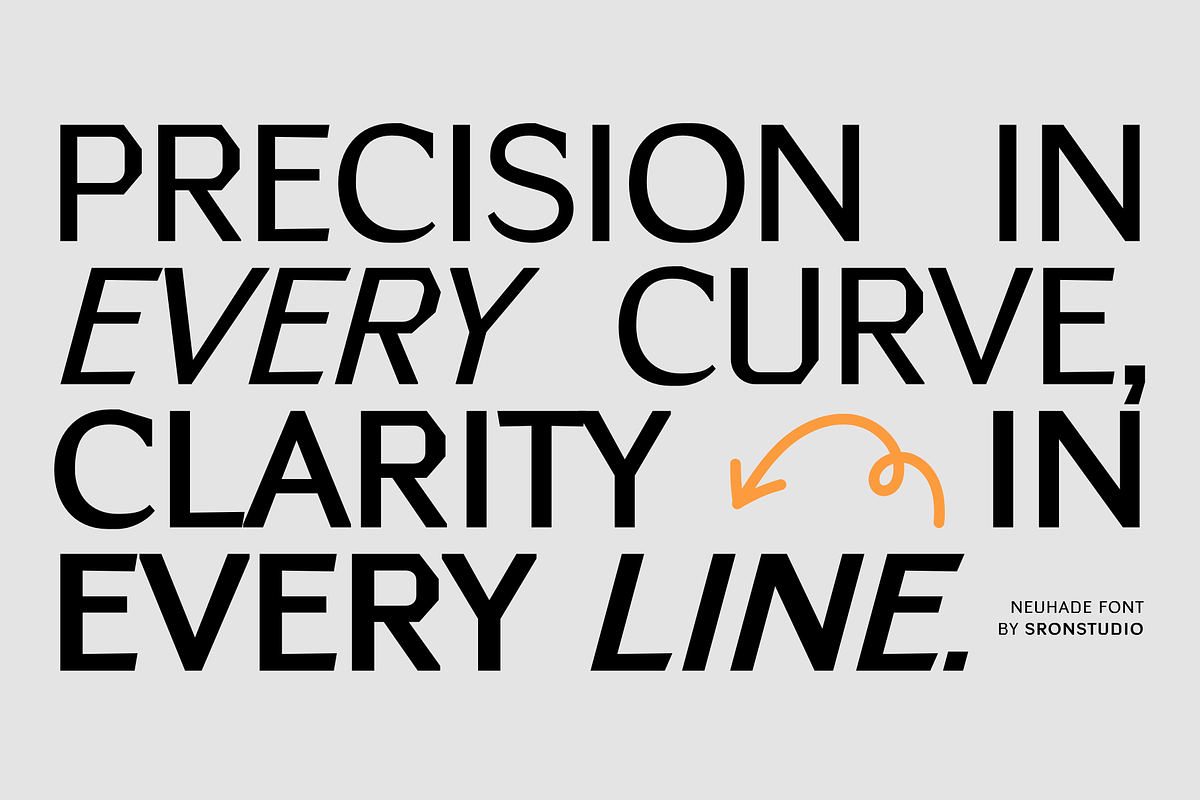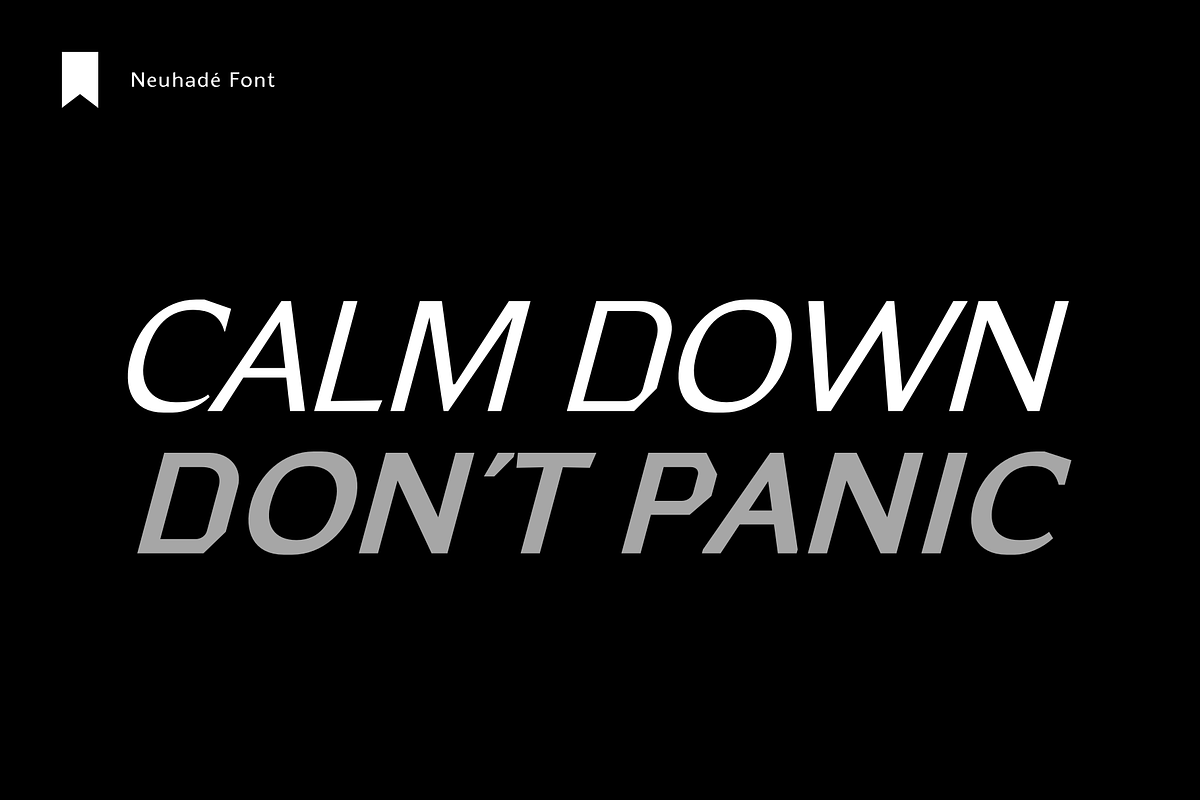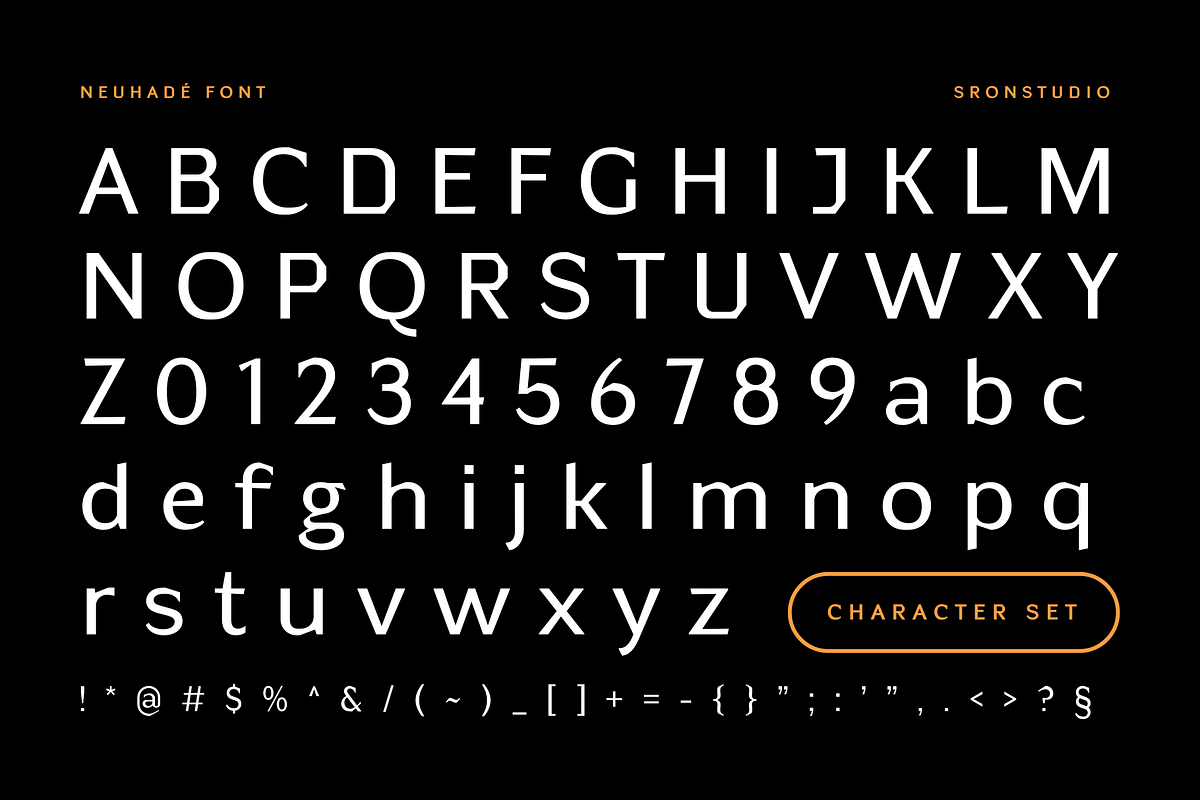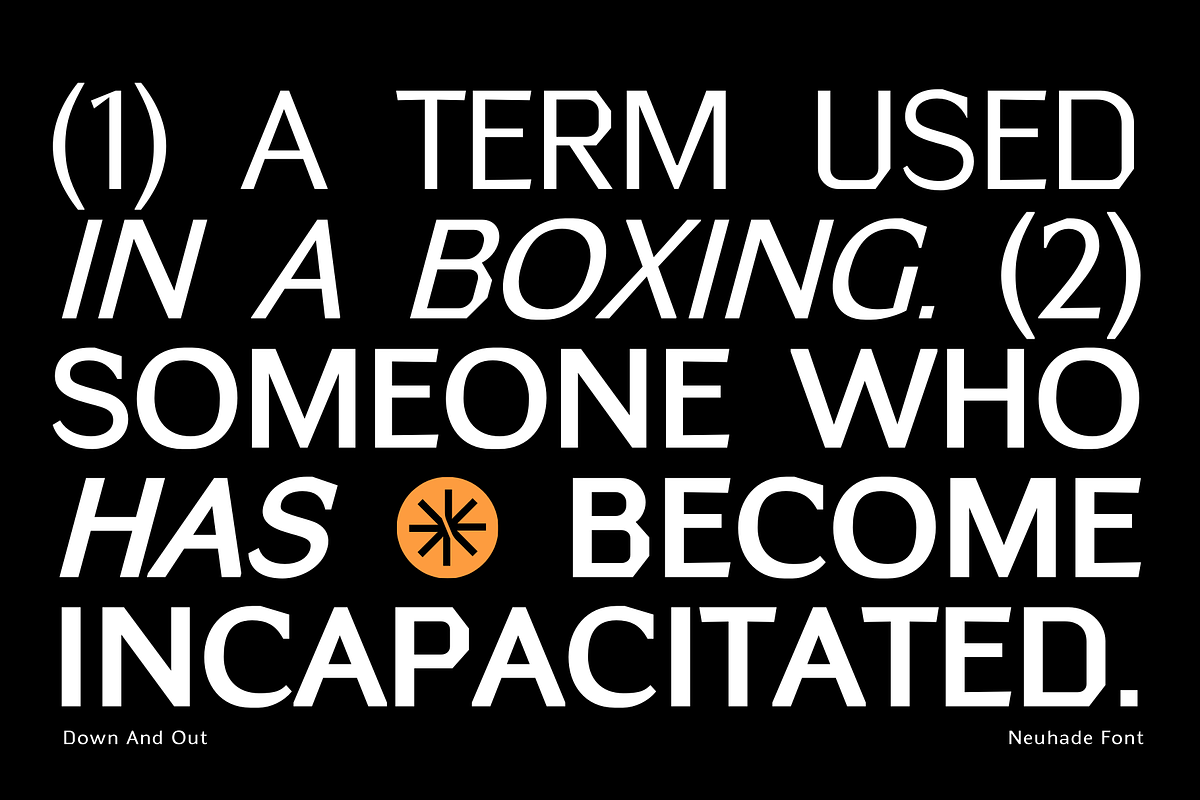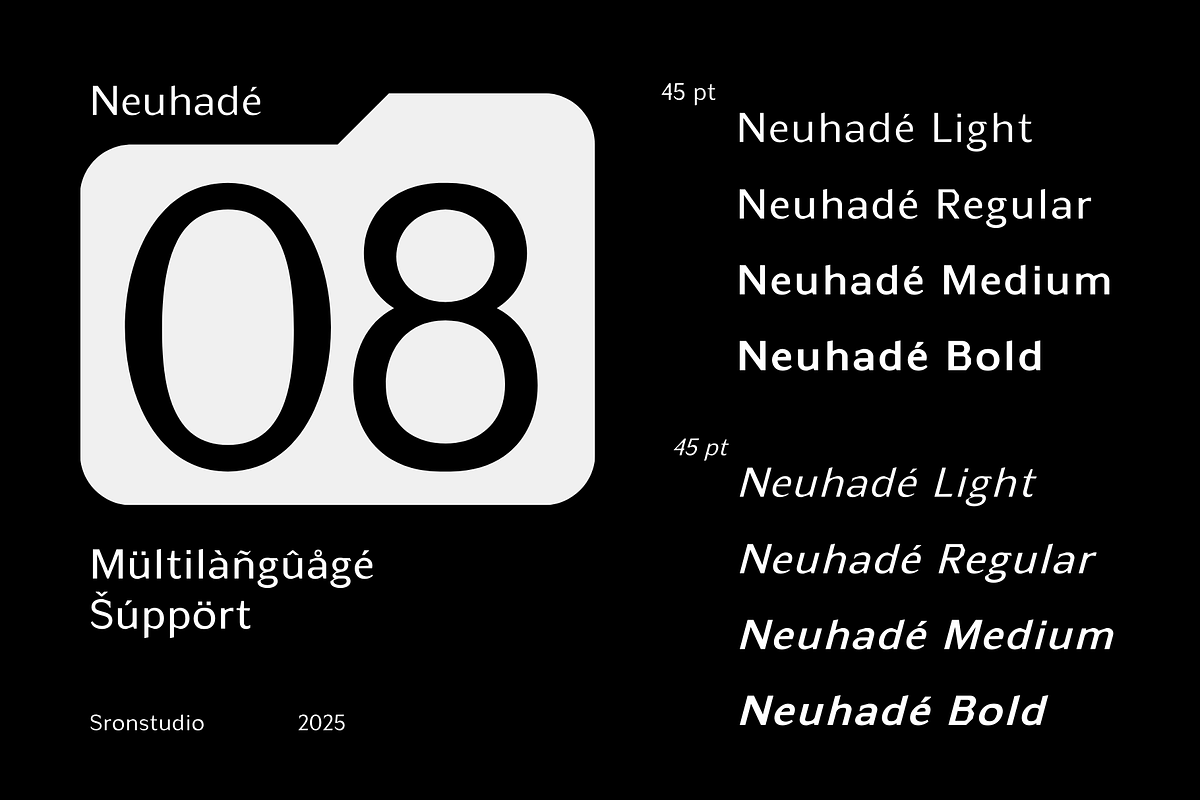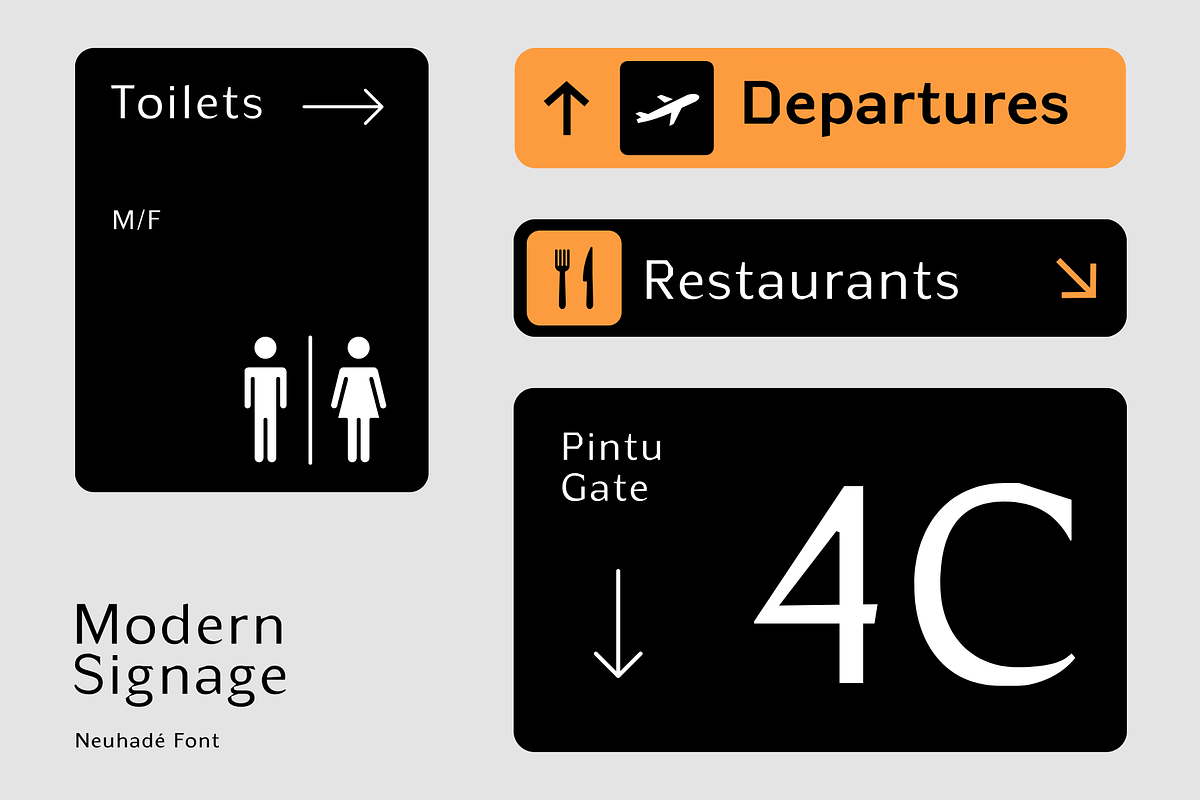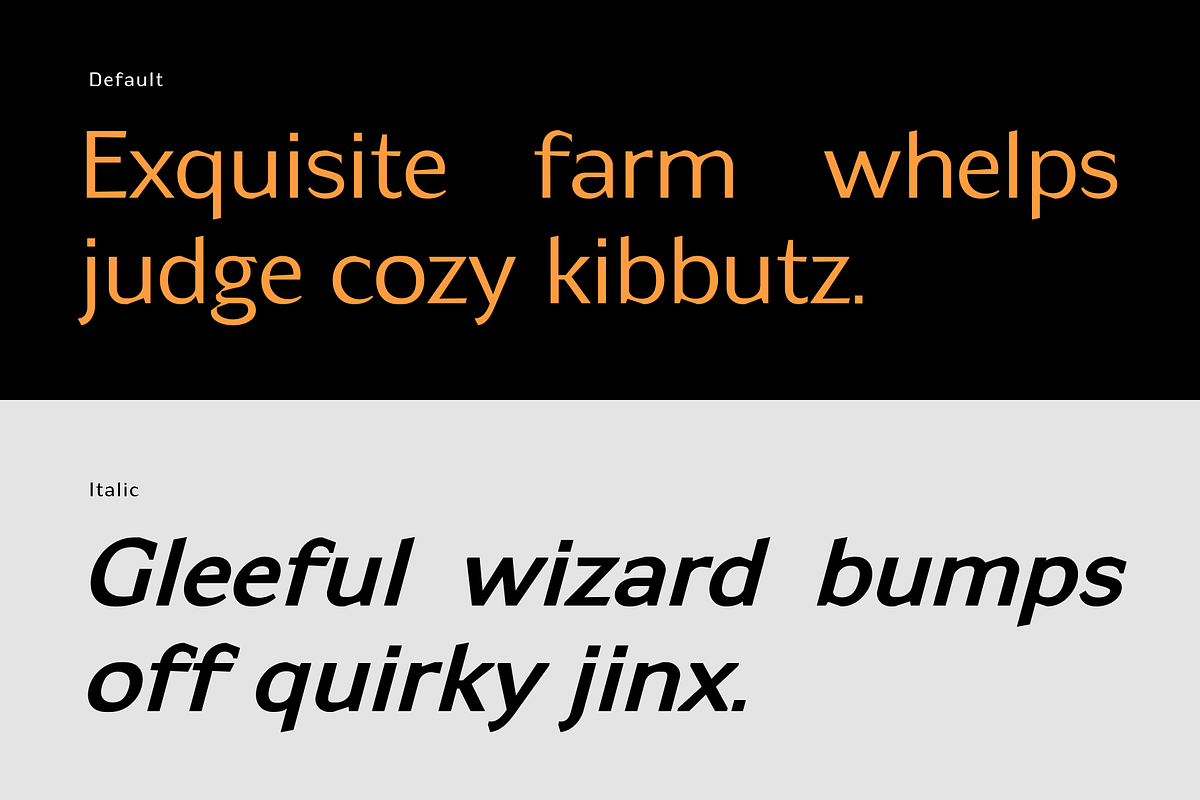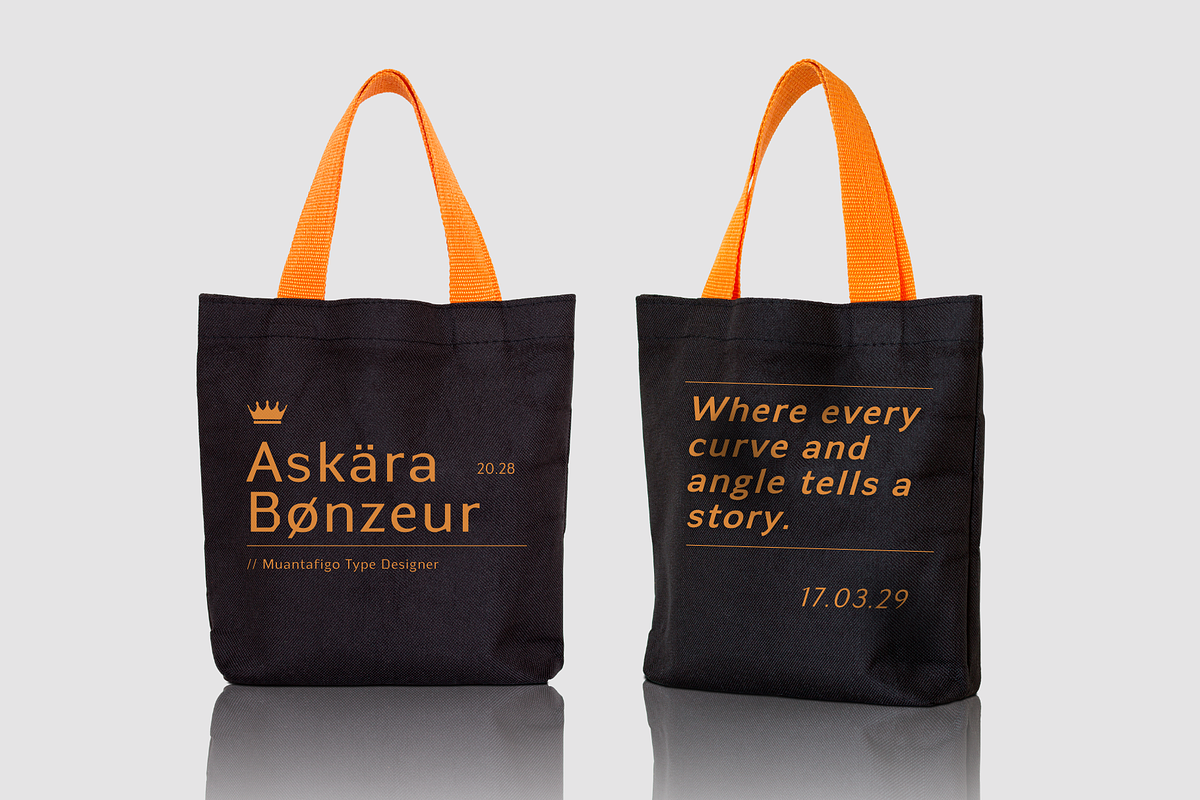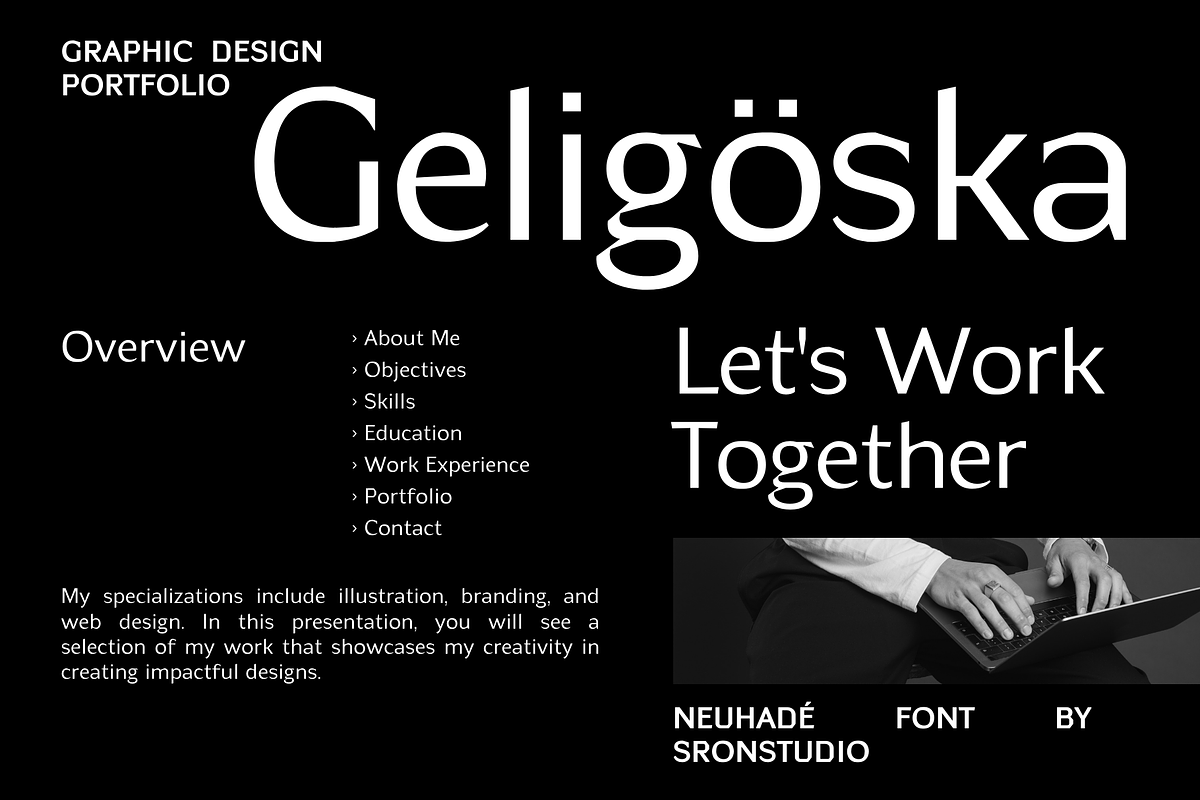
Neuhade - Modern Logo Font
Neuhade is a sleek and modern logo font designed to bring a sophisticated and contemporary touch to your branding. With its clean lines, geometric precision, and stylish letterforms, this font is perfect for logos, headlines, packaging, and high-end design projects. Neuhade exudes elegance and professionalism, making it a great choice for brands that want to stand out with a refined and futuristic aesthetic. What’s included:
- Style: Light, Regular, Medium, & Bold With Italic Version